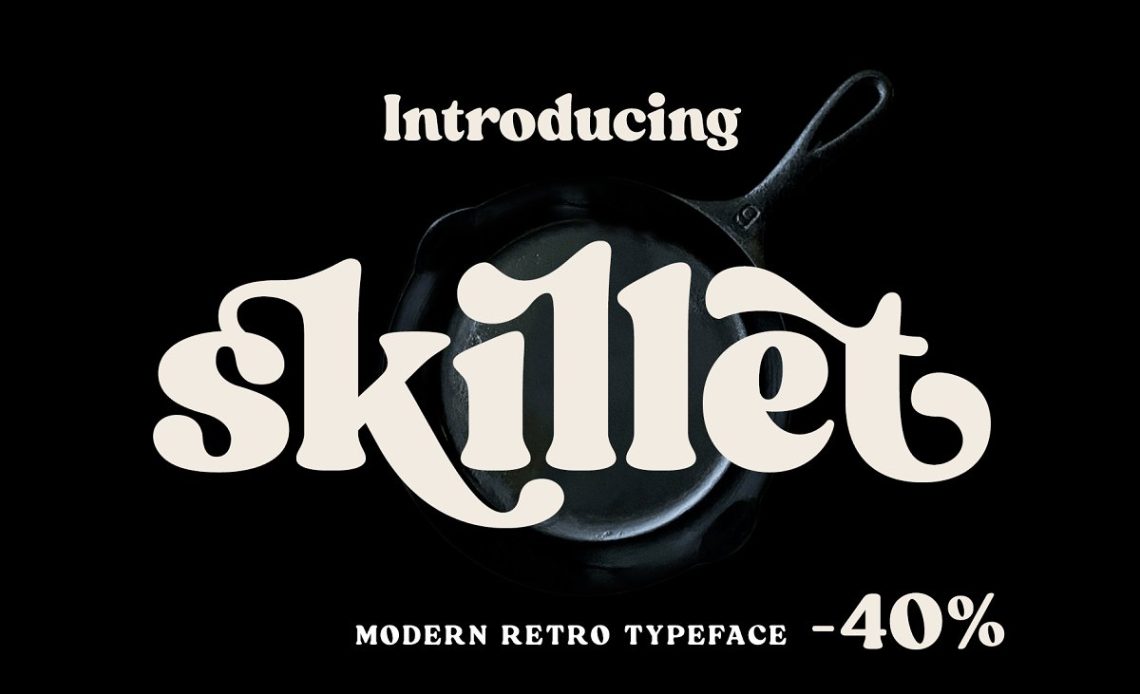
Introducing Skillet Serif Typeface, a bold vintage style font with a strong character and extremely smooth features that exudes confidence and hedonism. Created by Emil Bertell, Skillet is perfect for film posters and any project that requires a touch of retro charm.
Skillet comes in two weights: Regular and Condensed. The Regular version takes over space while the Condensed version gives a more intimate impression. Both versions come with a wide range of OpenType features, including Standard Ligatures, Discretionary Ligatures, Swash, Stylistic or Titling Alternates, and a variety of alternative characters.
When using Skillet, be sure to keep Standard Ligatures on for normal use. However, if you're looking to create custom headlines or logos, try using the Discretionary Ligatures, Swash, Stylistic or Titling Alternates.
When using Skillet, it's important to note that the standard versions of characters will be displayed. However, all the alternate characters are included in the font and can be accessed using an OpenType-savvy software or manually from the Character Window.